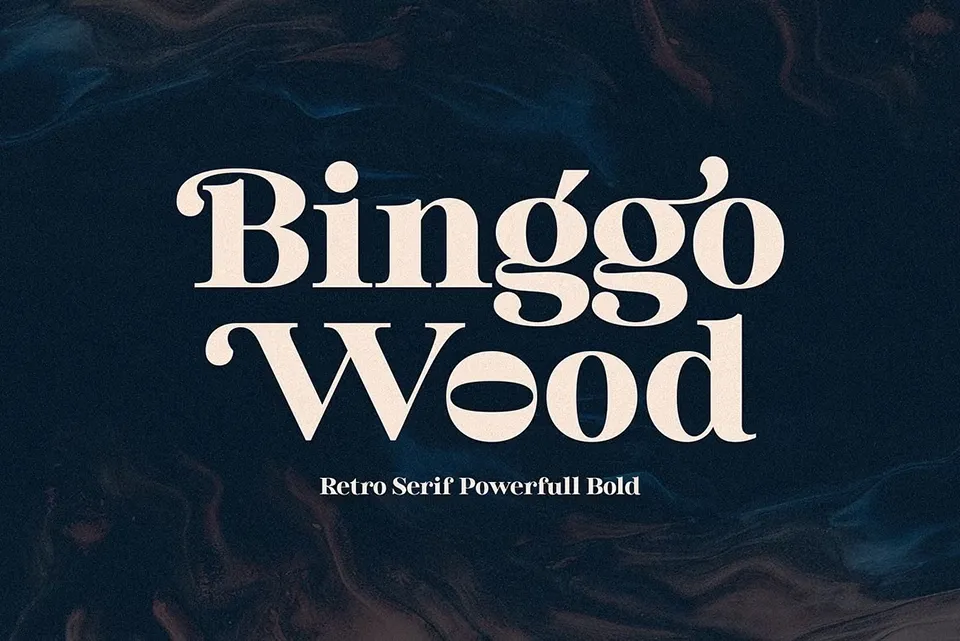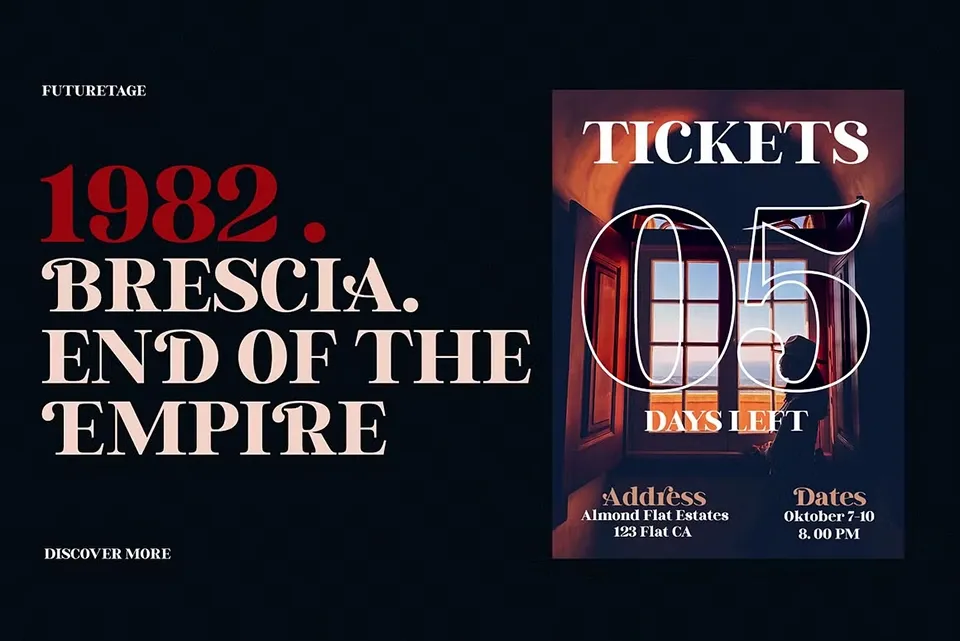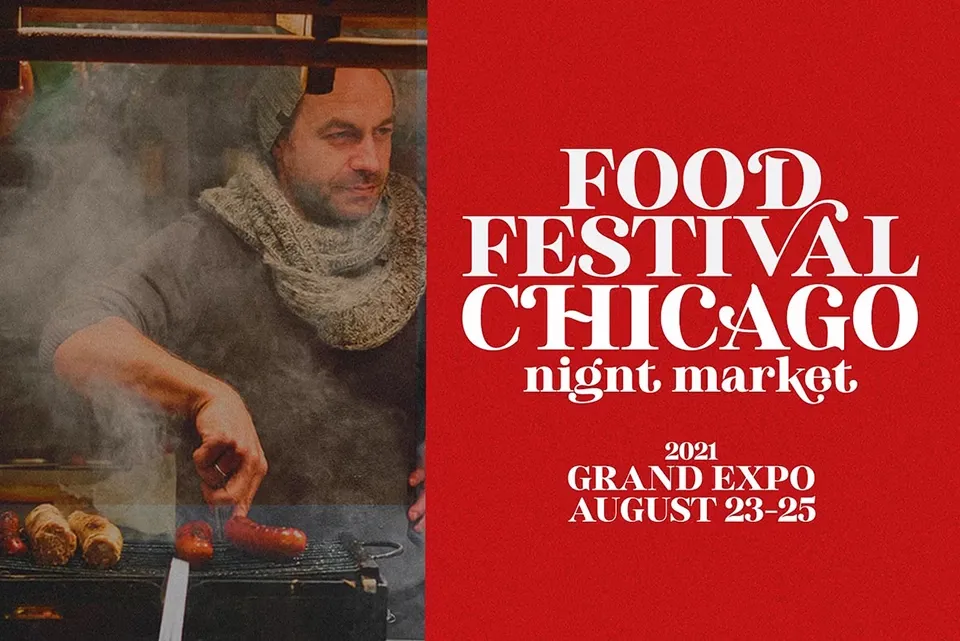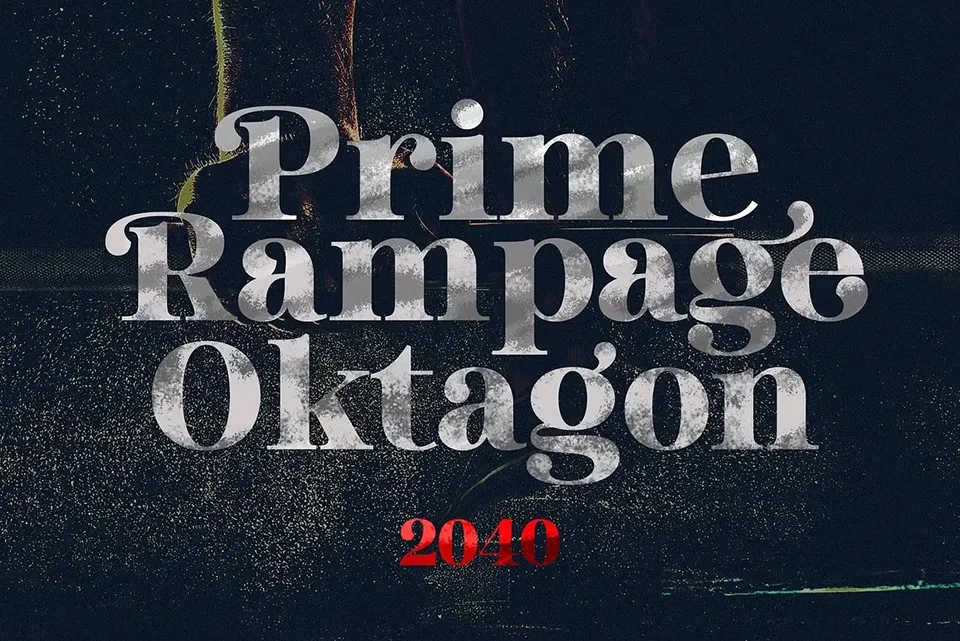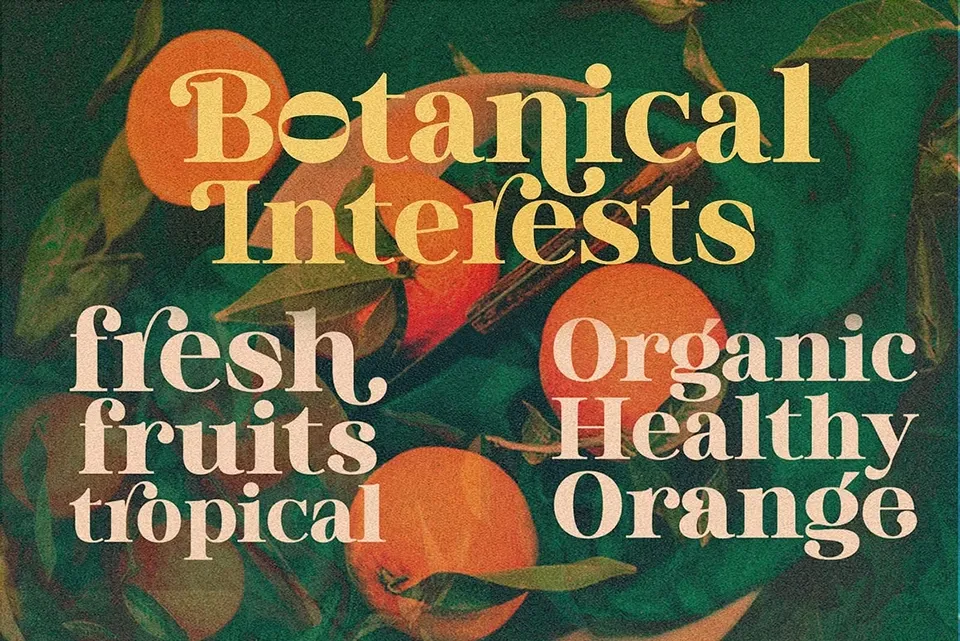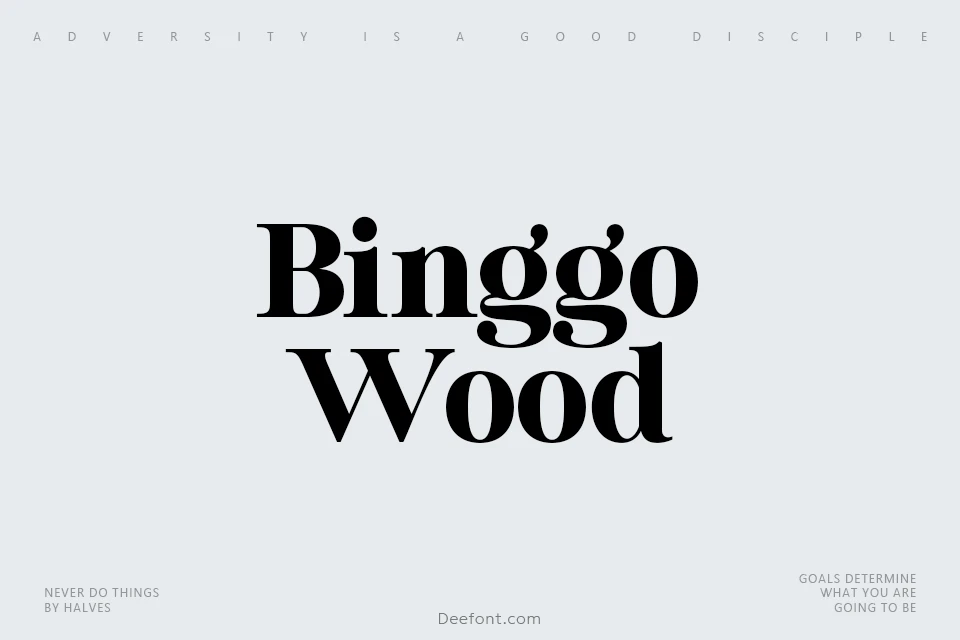
Binggo Wood Font
Binggo Wood Font is a high-contrast retro serif font designed with a modern twist on classic Caslon styles. Created by Genesis Lab, this font stands out with its powerful, bold letterforms and subtle vintage charm, making it perfect for bold headings, wedding invitations, logos, and decorative projects. With over 590 glyphs, including ligatures, stylistic alternates, and support for extended Latin, Binggo Wood offers versatility and elegance for both print and digital designs.